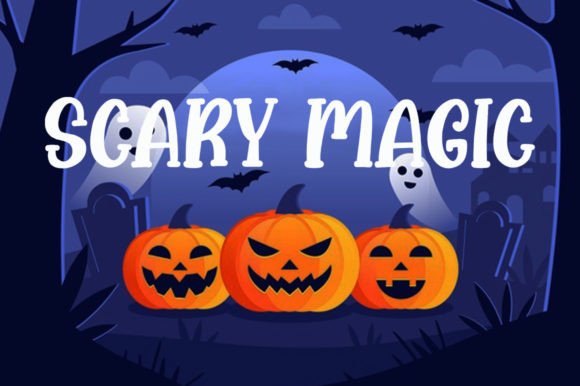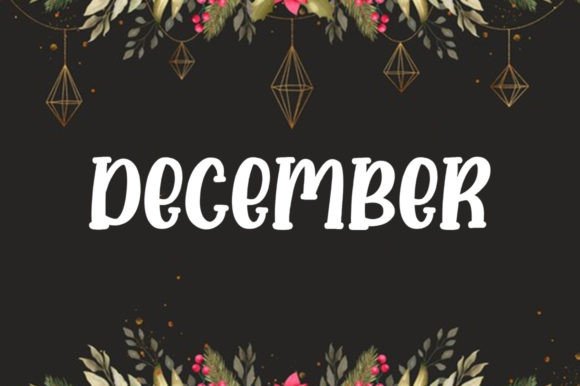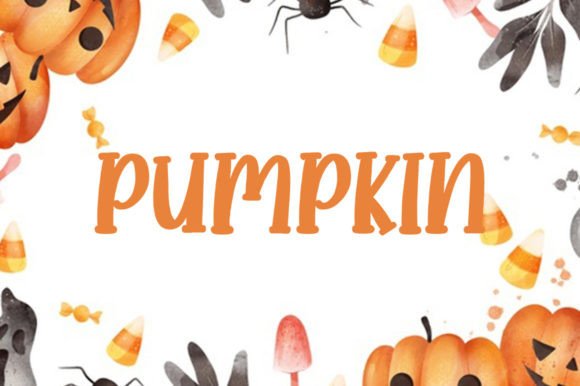
About Hello Halloween Font Download
The Hello Halloween Font Download is a fun and friendly handwritten script created to bring joy and creativity to your projects. With its playful strokes and warm personality, this typeface works beautifully across a wide range of designs. Because of its versatility, Hello Halloween is perfect for crafts, invitations, posters, websites, and branding projects.
A Fun Handwritten Script with Charm
Hello Halloween captures the spirit of casual handwriting while adding a touch of style. Unlike standard typefaces, this Hello Halloween script font balances creativity and readability. As a result, it is suitable for both personal and professional designs.
Perfect for Crafts and Greeting Cards
Handwritten fonts add character and warmth to DIY projects. The Hello Halloween Font is ideal for greeting cards, wedding invitations, and handmade crafts. Moreover, its playful charm ensures that every message looks personal and heartfelt.
Branding and Packaging with Hello Halloween Font
Typography is one of the strongest tools in brand identity. The Hello Halloween handwritten font works well for boutique logos, product packaging, and promotional materials. In addition, it creates a modern yet approachable identity that appeals to a wide audience.
Posters, Headlines, and Display Use
Large-scale projects need fonts that grab attention instantly. The Hello Halloween Font Download is excellent for posters, billboards, and magazine titles. At the same time, it stays legible in smaller text, making it versatile for multiple contexts.
In the digital world, fonts play an important role in creating engaging content. The Hello Halloween typeface is perfect for Instagram posts, Pinterest graphics, YouTube thumbnails, and blog headers. Its fun strokes add personality, helping your digital content stand out.
Why Designers Choose Hello Halloween Typeface
Designers love fonts that are flexible and stylish. Many handwritten scripts lose clarity in smaller sizes, but the Hello Halloween handwritten script remains easy to read while keeping its friendly personality. This makes it a practical choice for creative professionals and hobbyists alike.
Add Playful Energy to Your Designs Today
If you want a handwritten script that feels fun, friendly, and versatile, the Hello Halloween Font Download is the right choice. From greeting cards and crafts to branding and social media graphics, it adds creativity and charm to any project. Finally, download Hello Halloween today and make your designs unforgettable.